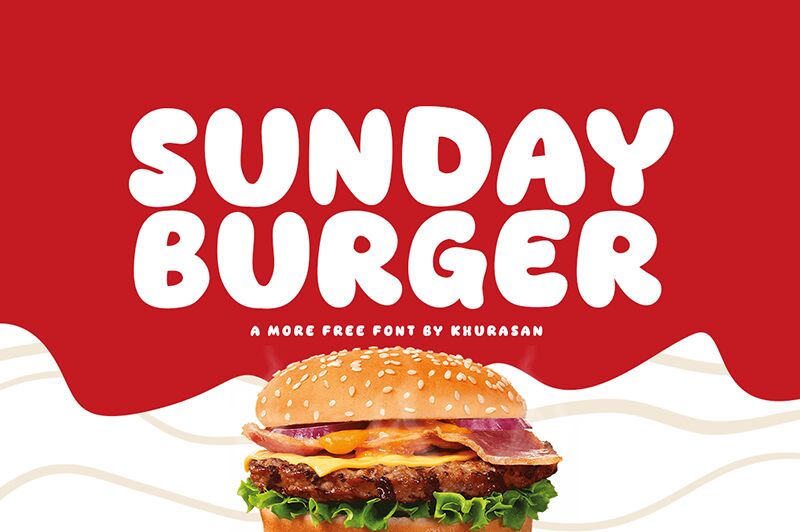
Sunday Burger
Sunday Burger is a delightful display font designed by Khurasan. With its cartoon style and extra-bold weight, this font is perfect for playful and eye-catching projects.
The semi-expanded width adds a touch of uniqueness to any design, making it suitable for children's books, packaging designs, comic strips, and animated videos. Sunday Burger will bring a burst of fun and energy to your creative endeavors, ensuring that your message stands out with its boldness and charm.